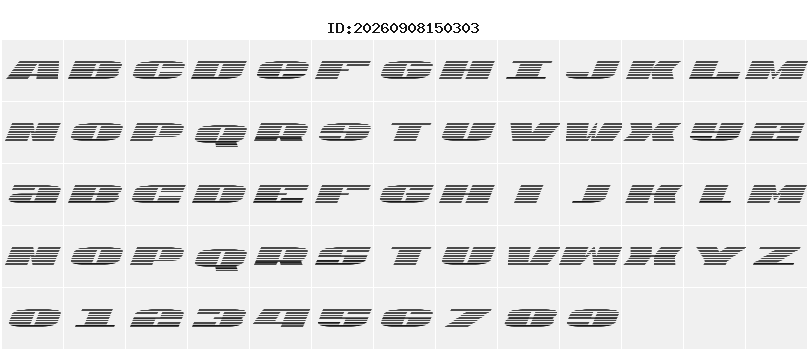
U.S.A. Gradient Italic.ttf is a modern, elegant sans-serif font designed for ultimate readability and visual harmony. Perfect for branding, headlines, web design, and print materials.